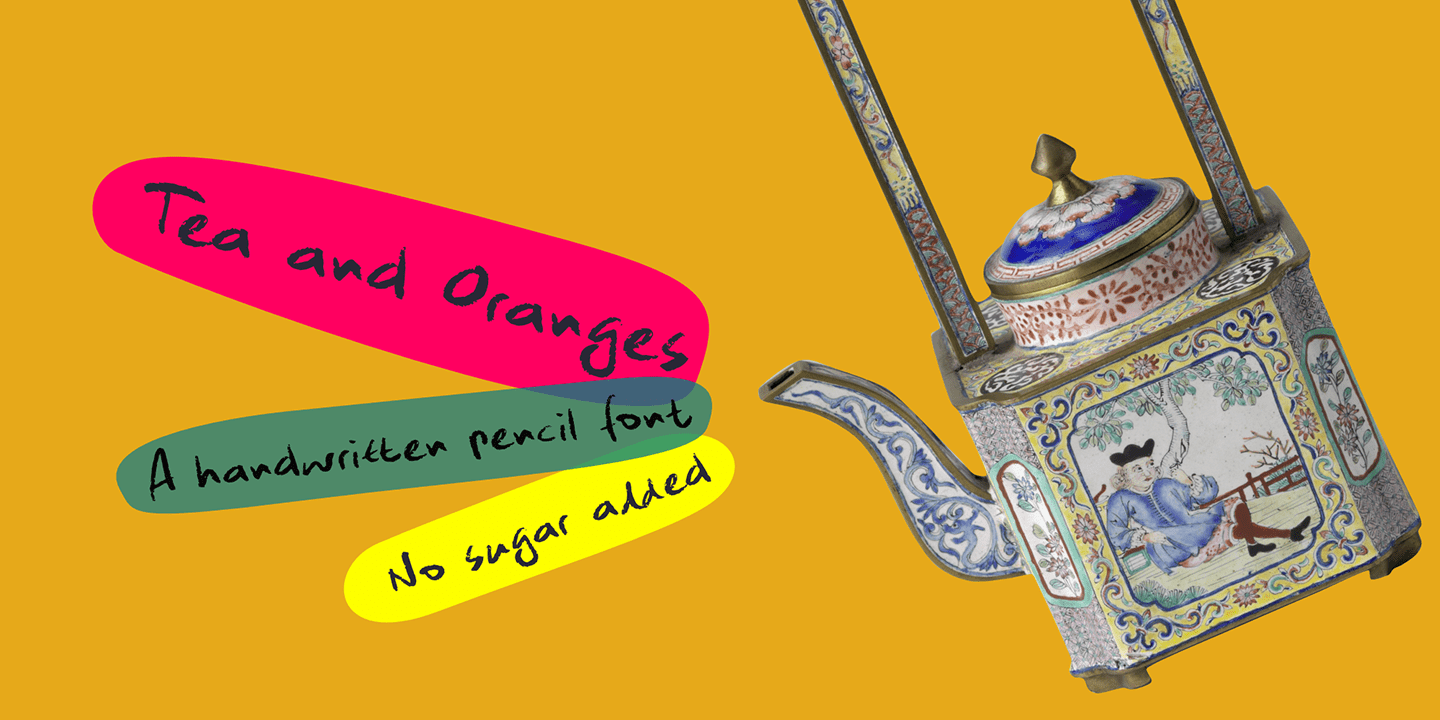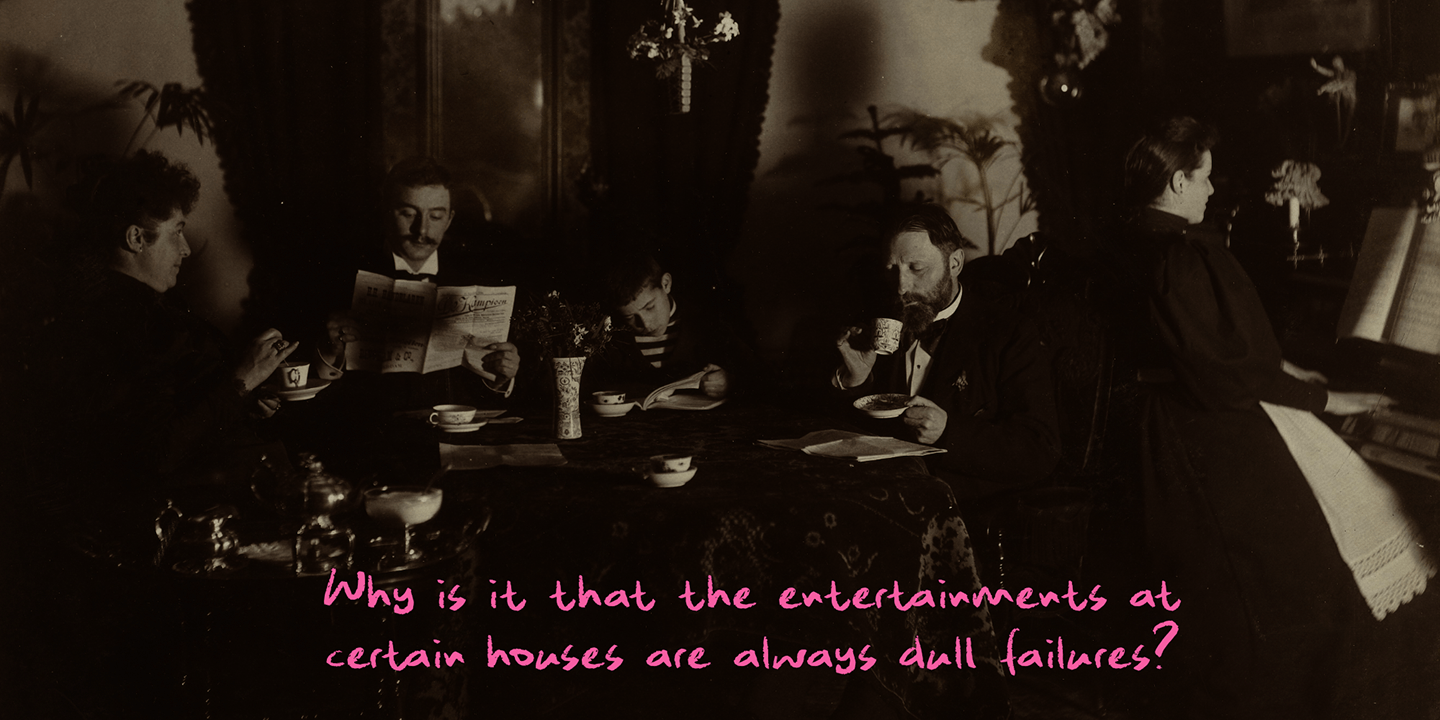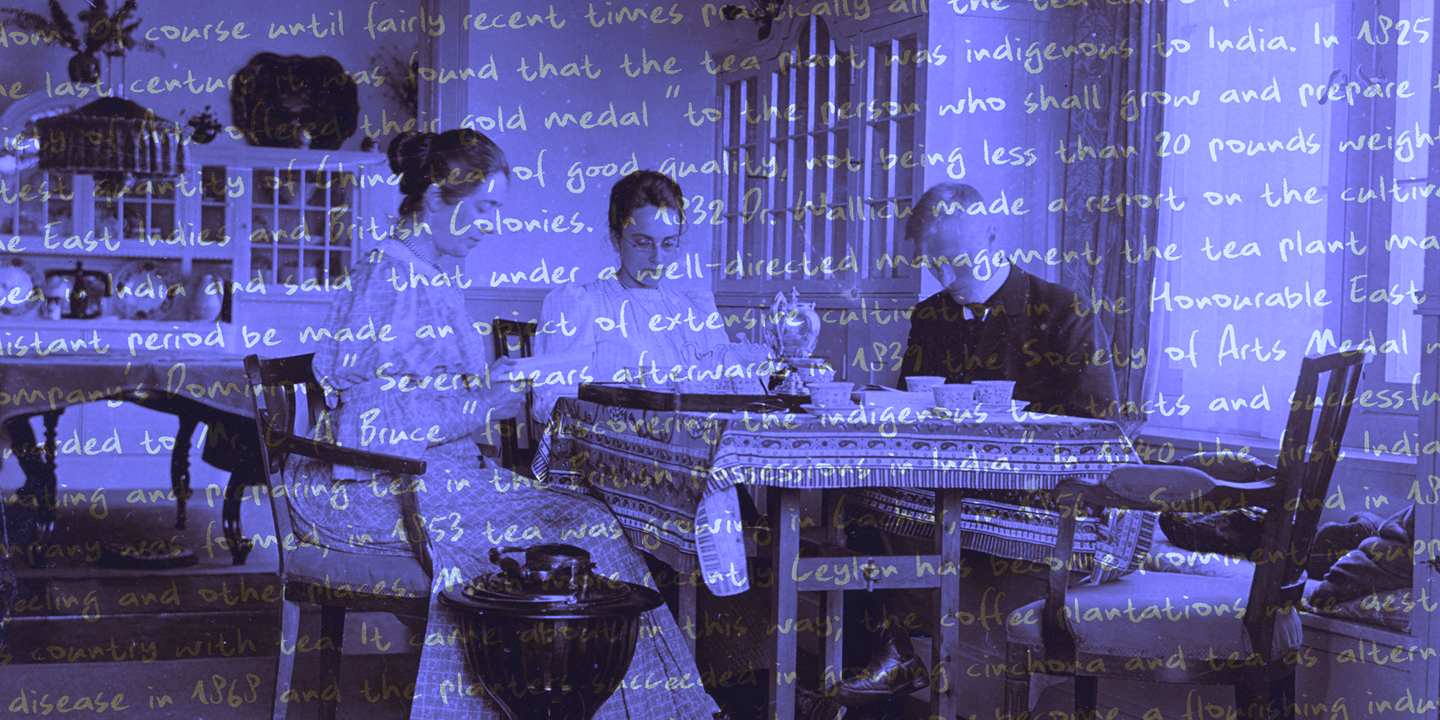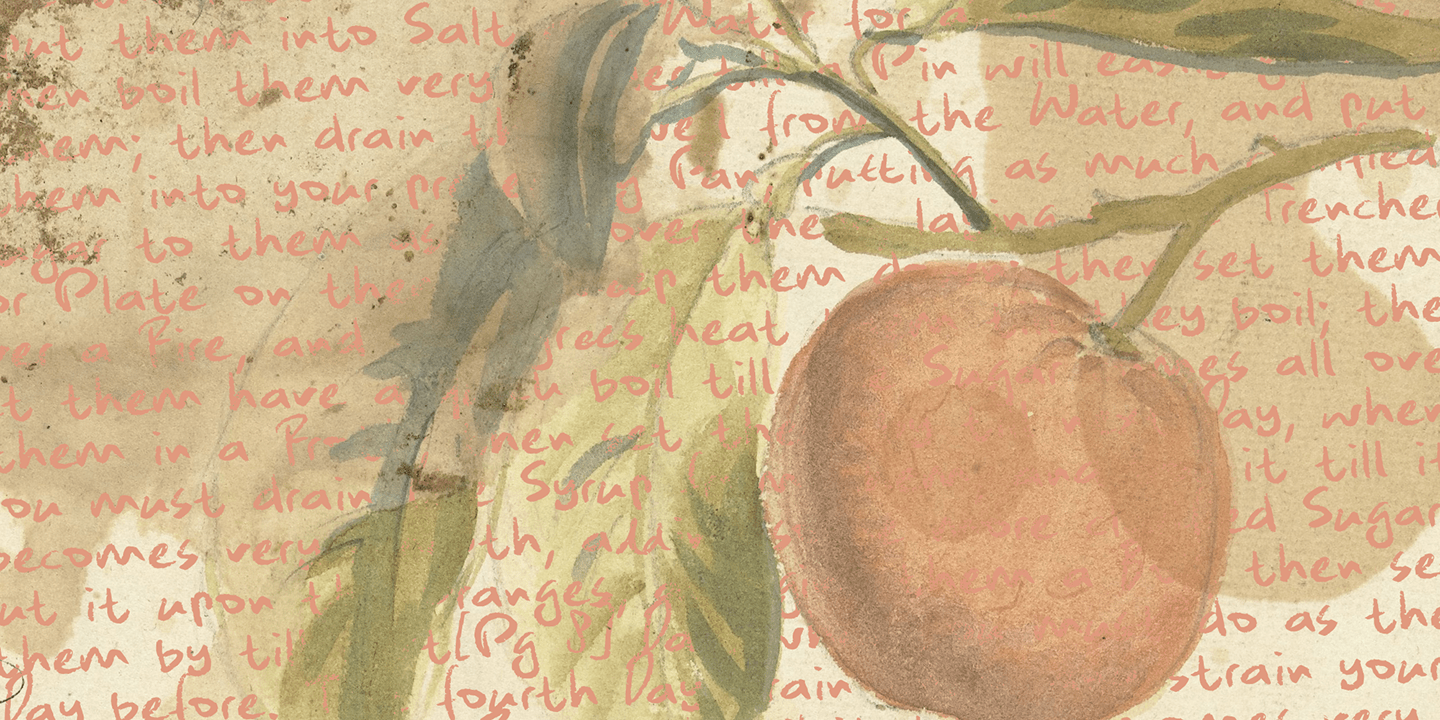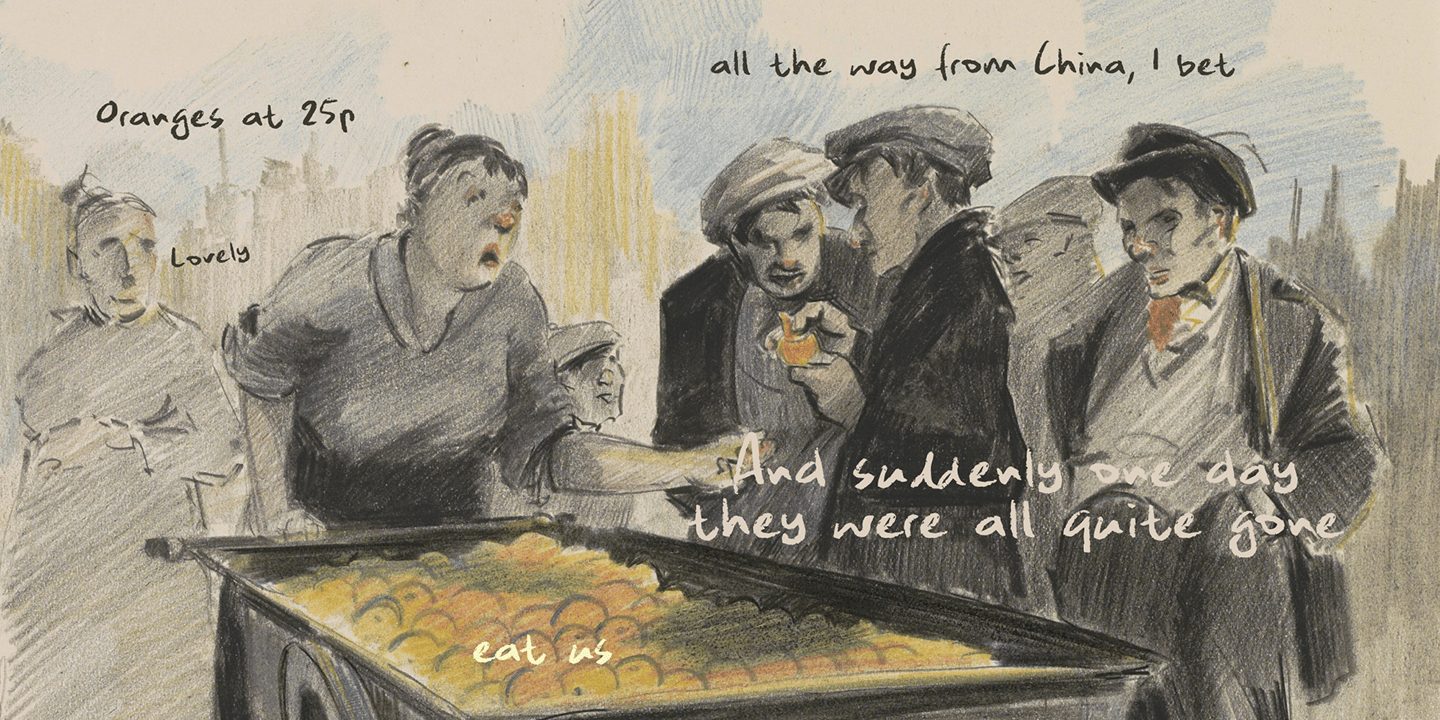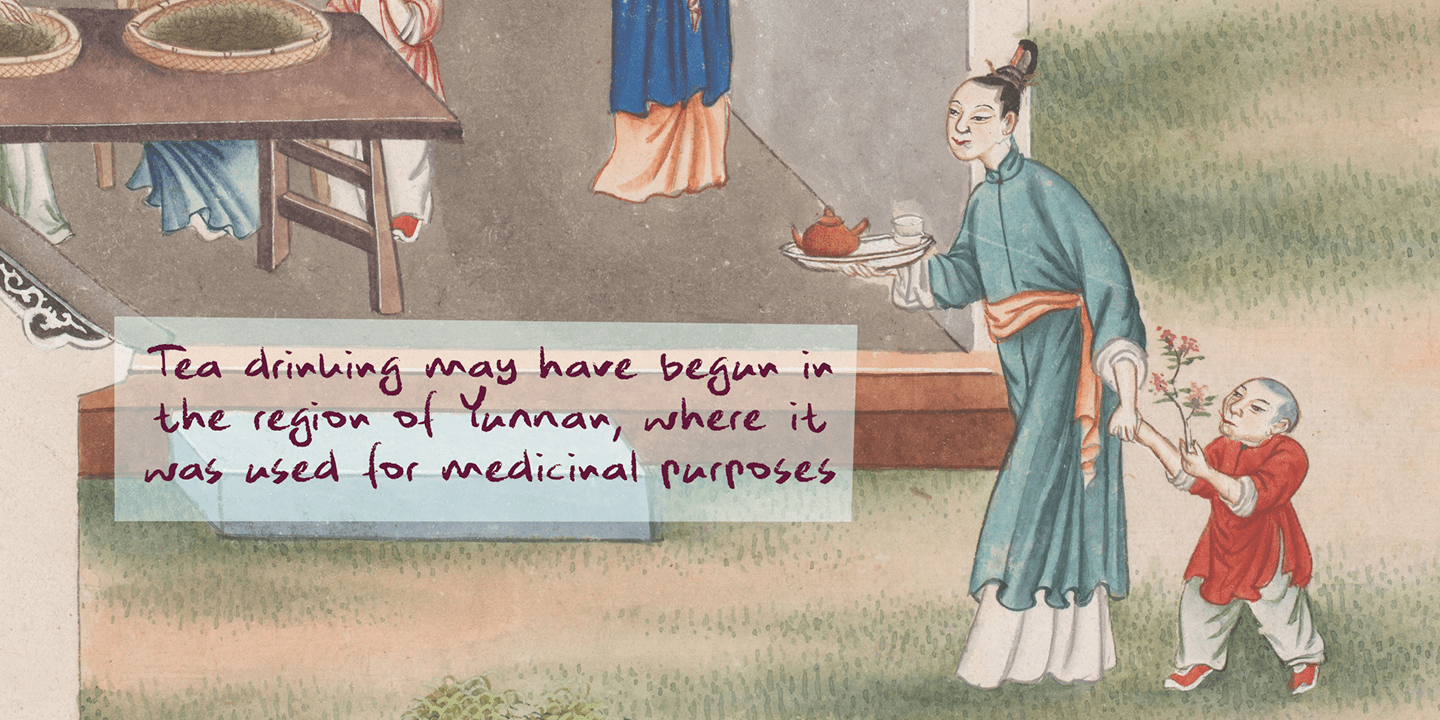
Tea and Oranges
Tea And Oranges is a line from Leonard Cohen's song Suzanne. "She feeds you tea and oranges that come all the way from China." The song was a favourite of my brother Rizja who, sadly, recently passed away.
Tea And Oranges is a handwritten "pencil" style font. It comes with impressive language support and a bunch of Discretionary ligatures for you to play with!